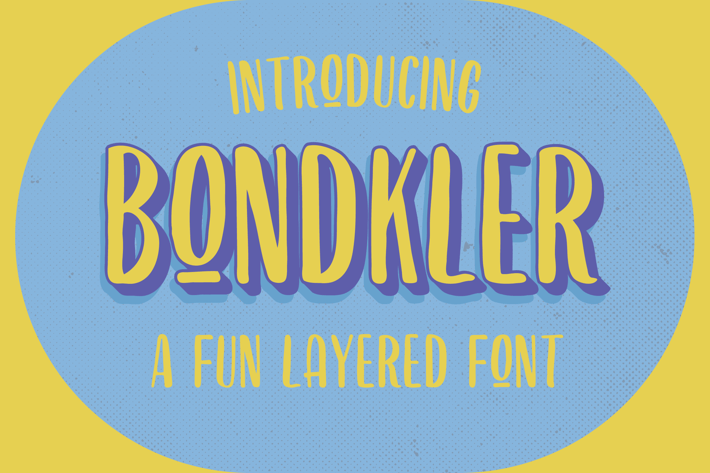
Bondkler Playful Font
Bondkler is a playful font.Use for awesome display, labeling, clothing, movie sceen, poster, movie title, gigs, album covers, logos, and much more. especially with colorful and kids design